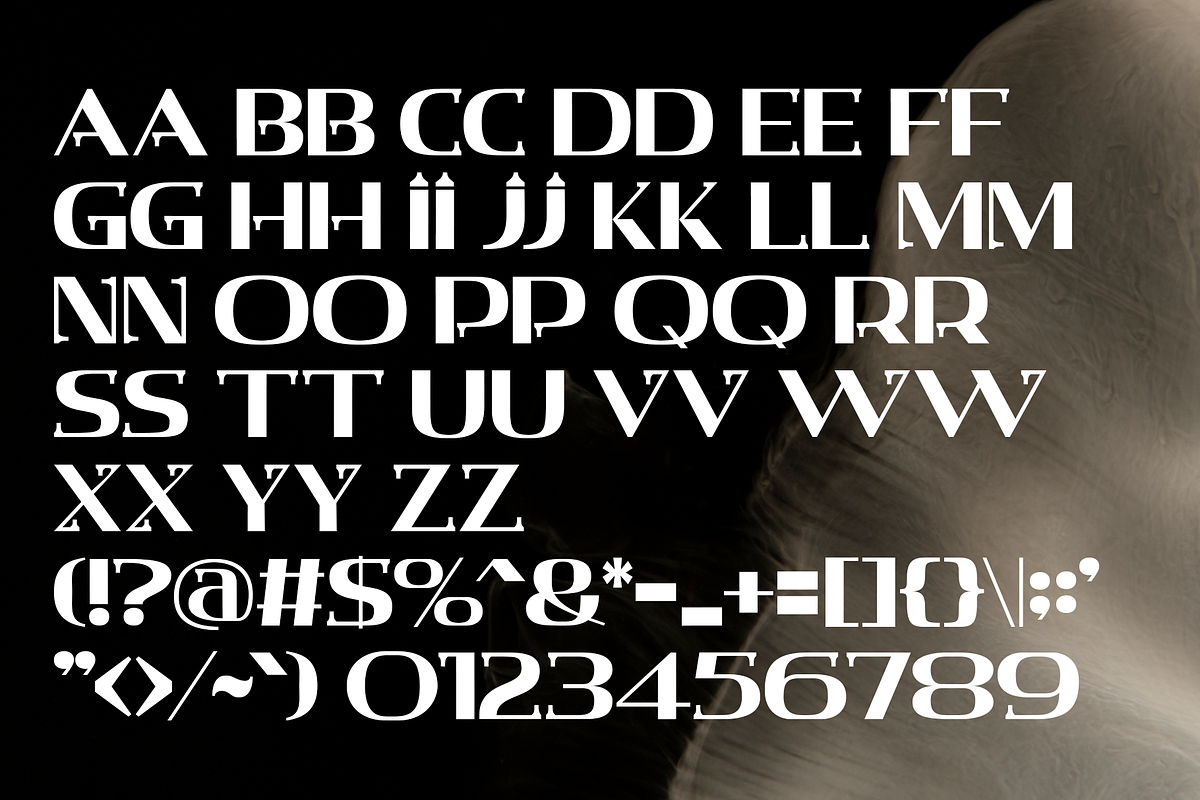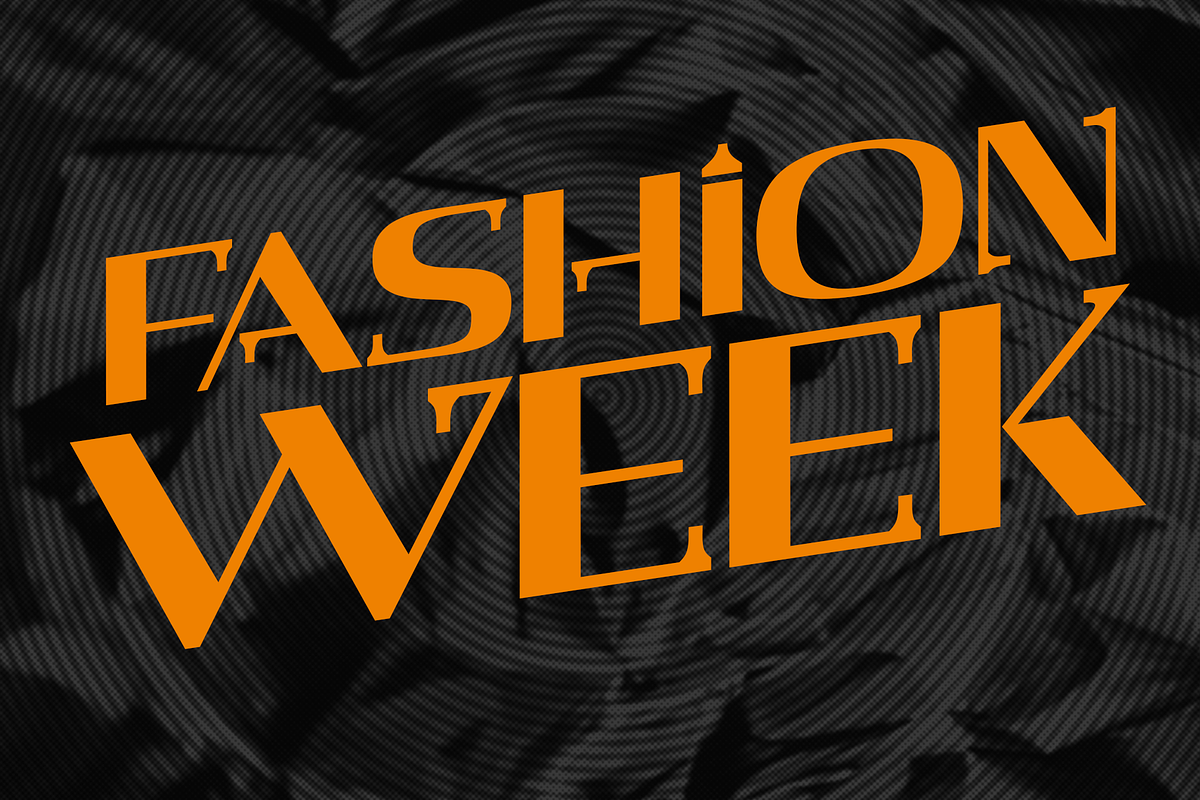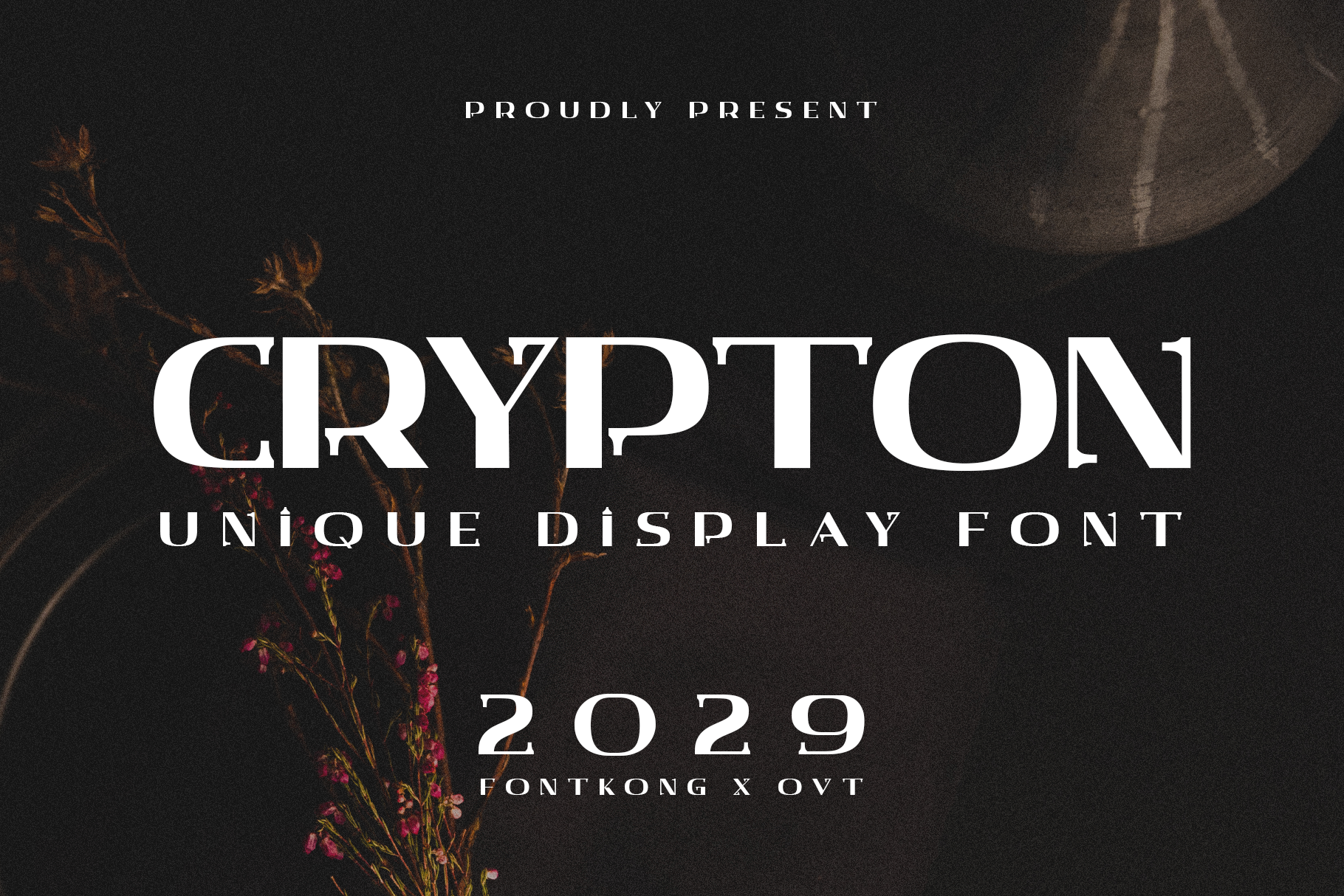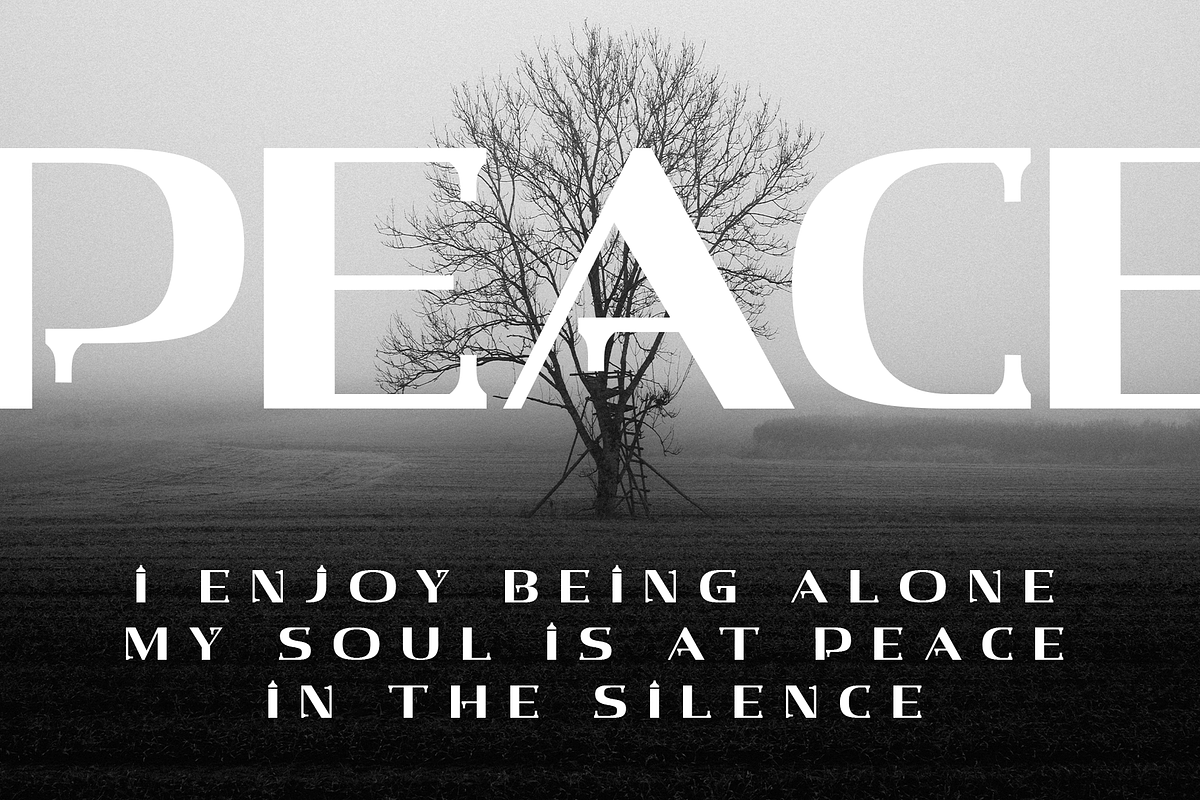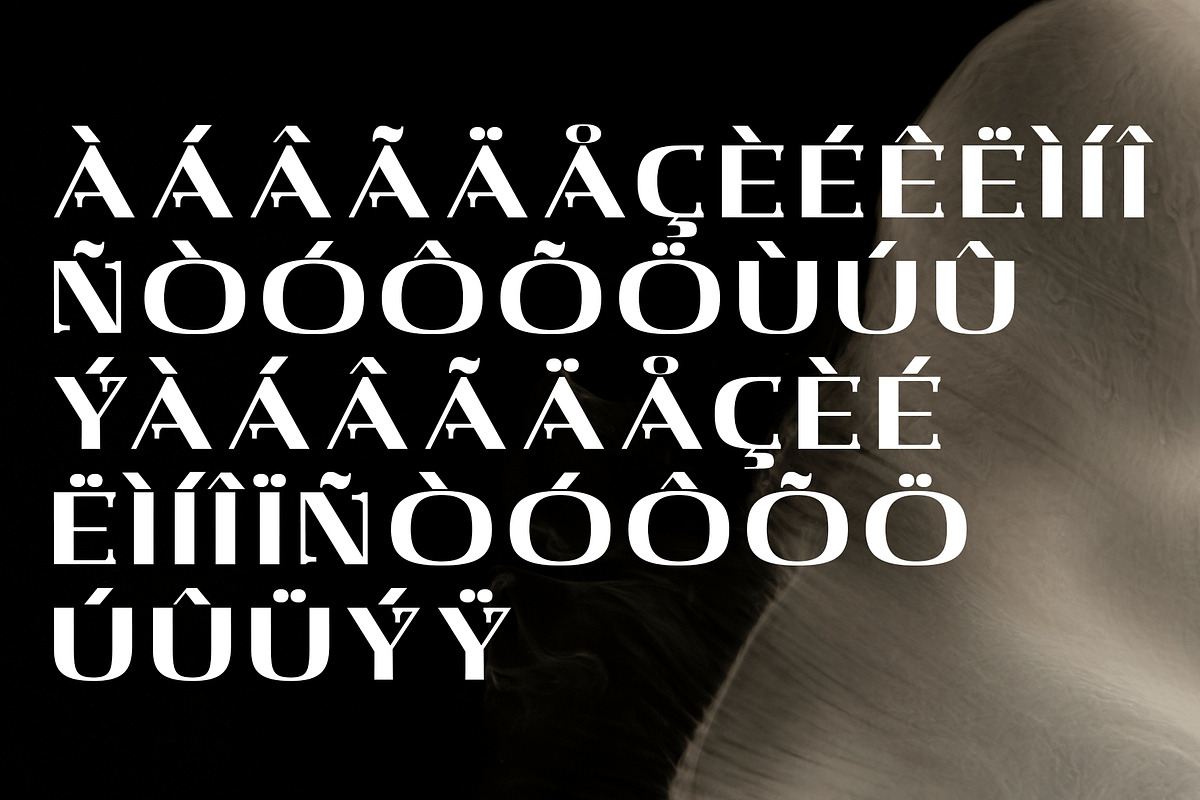
Crypton - A Unique Display Font
Crypton is a distinct and innovative display font designed to captivate and intrigue. With its futuristic design and bold letterforms, Crypton is perfect for sci-fi themed projects, tech branding, game titles, and edgy promotional materials. This font merges modern aesthetics with an avant-garde style, ensuring your designs make a striking impression.
Crafted with a touch of the extraordinary, Crypton features unique characters that stand out with their geometric precision and dynamic shapes. Its bold and unconventional design makes it ideal for headlines and display text, providing a strong and memorable visual presence. The font's adaptability allows it to shine in various design contexts, from digital screens to printed posters.
Dive into the world of futuristic typography with Crypton, a font that combines uniqueness with modern flair. Its distinct style and versatility make it an essential tool for designers looking to create groundbreaking and memorable work. Elevate your projects with Crypton and let your creativity soar.